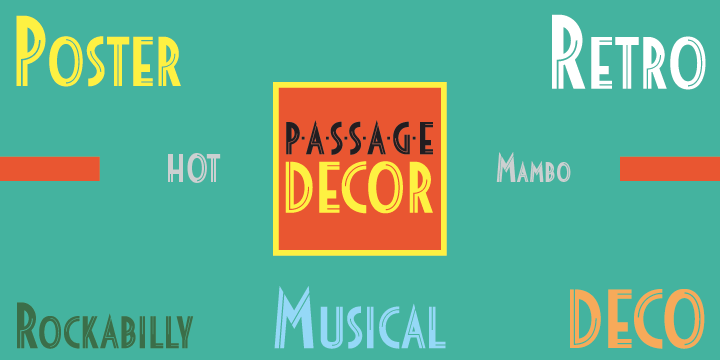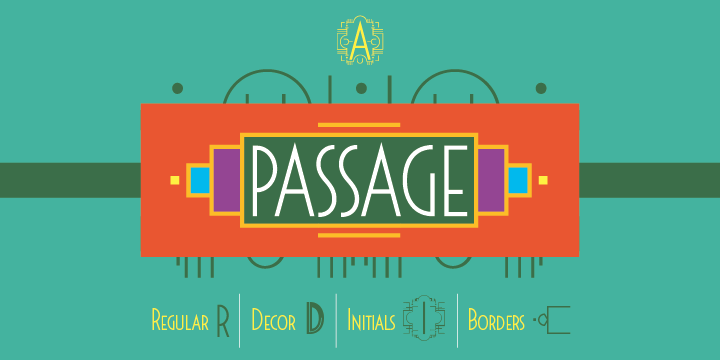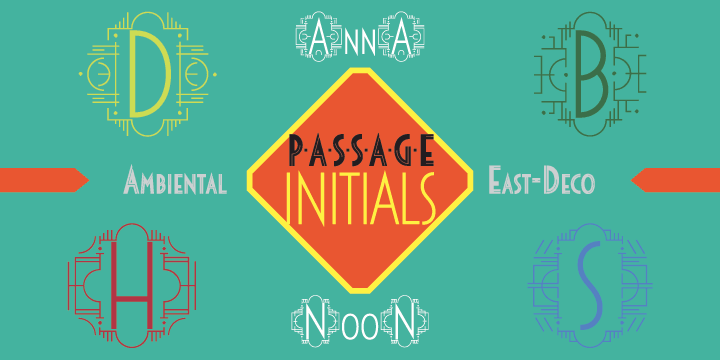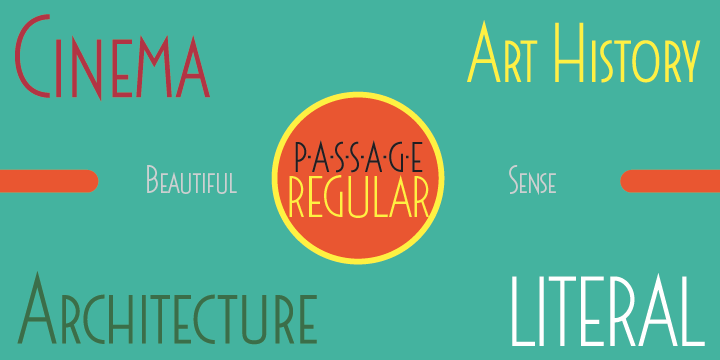
Passage is a multiple classification font family. This typeface has four styles and was published by Tour de Force Font Foundry.
“Passage” is a fresh looking decorative Art Deco font family, inspired by modern influences.